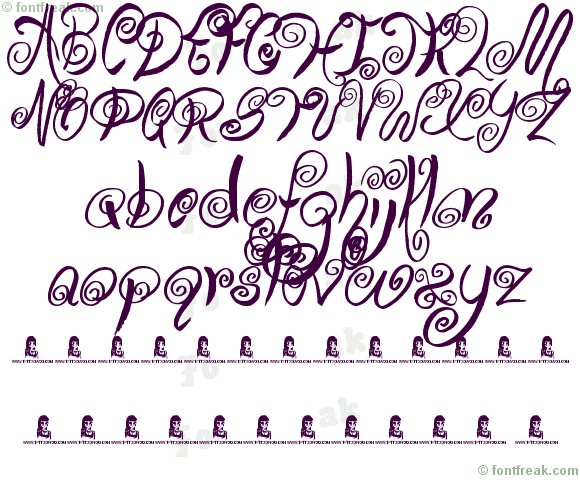
Swirly Shirley
About Swirly Shirley
Swirly Shirley is a captivating decorative font designed by Jonathan S. Harris, classified as a script typeface. This font features whimsical, flowing letterforms accentuated by playful swirls and curls, which lend a sense of charm and creativity to any project. The stroke weight is varied, providing a delightful contrast that enhances its artistic appeal. The letters are moderately spaced, allowing for readability while maintaining a relaxed, casual feel. Decorative elements, such as the spirals that adorn certain characters, make this font particularly unique and visually engaging.
Ideal for a range of creative uses, Swirly Shirley shines in applications such as wedding invitations where its romantic flair can set the perfect tone. It's also an excellent choice for business branding, especially for boutiques or cafes that wish to convey a fun, approachable image. This font can elevate greeting cards, making them more memorable, and it can be effectively utilized in advertising materials, such as posters or flyers, that aim to capture attention with a distinctive style.
What sets Swirly Shirley apart is its ability to combine whimsy with versatility. Whether you're crafting an elegant invitation or a lively promotional piece, this font adds a touch of creativity that can transform ordinary text into something extraordinary. For those searching for a unique typeface, the Swirly Shirley font free download is a fantastic resource that promises to inspire and enhance your design endeavors.